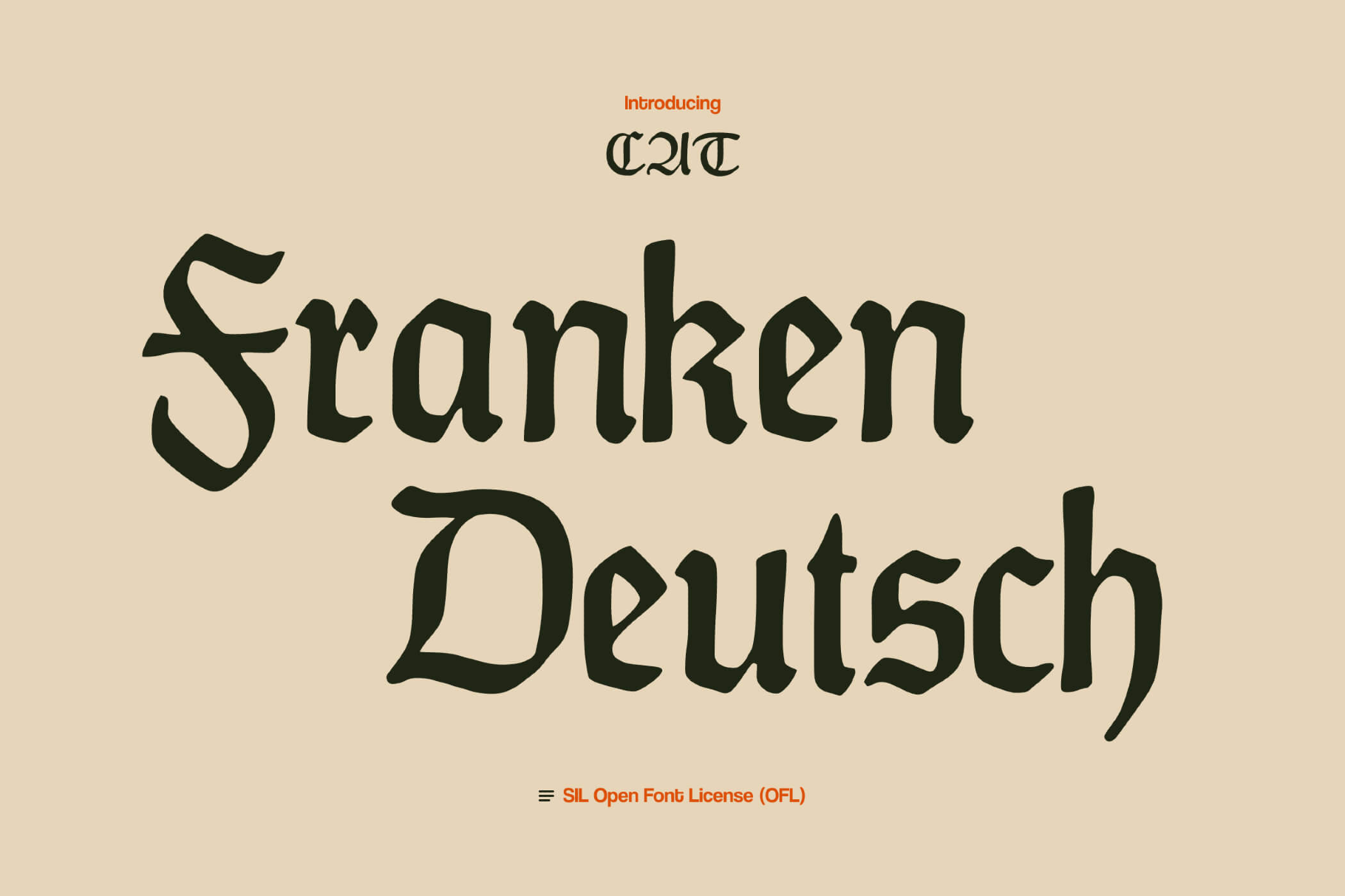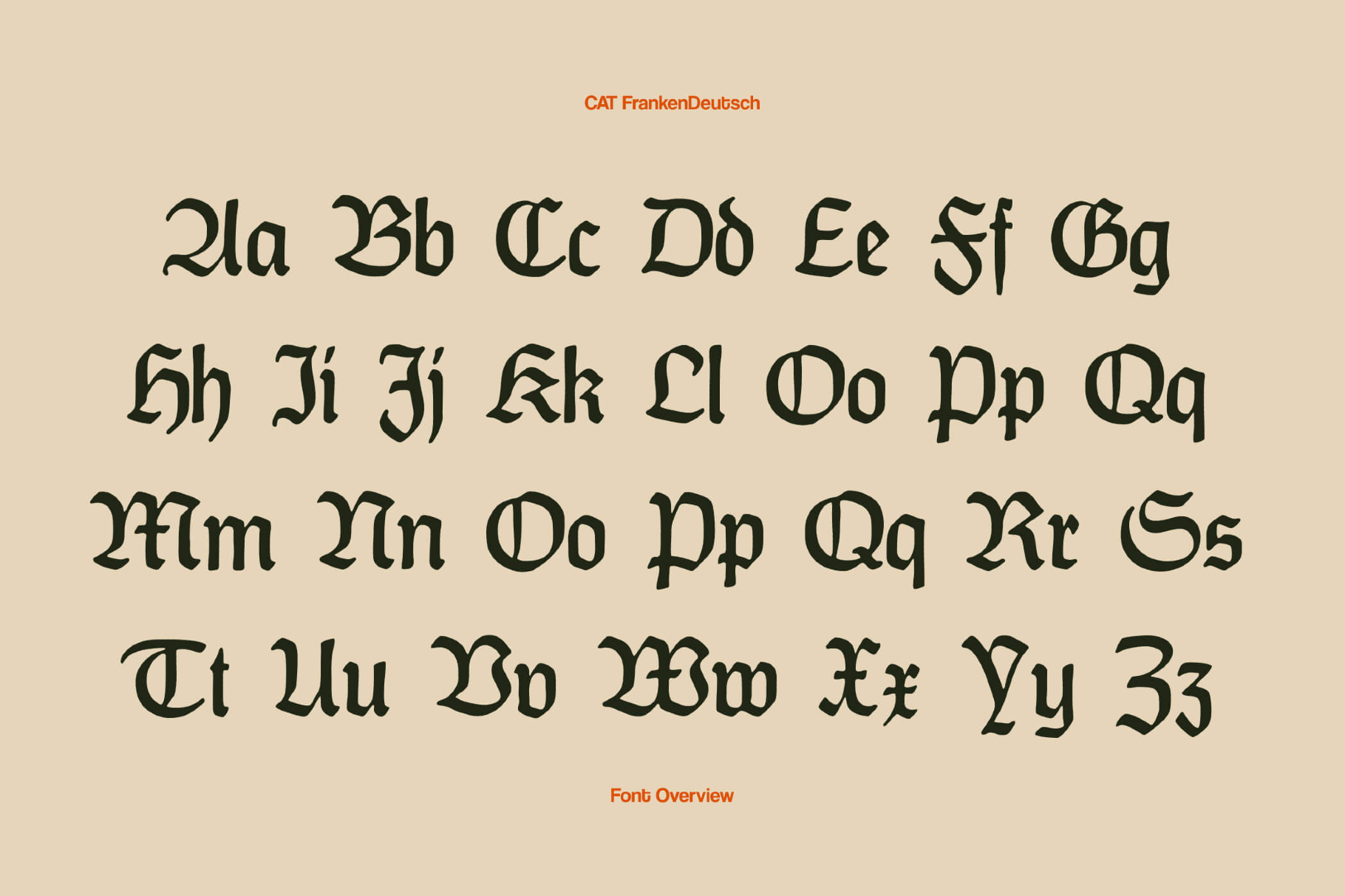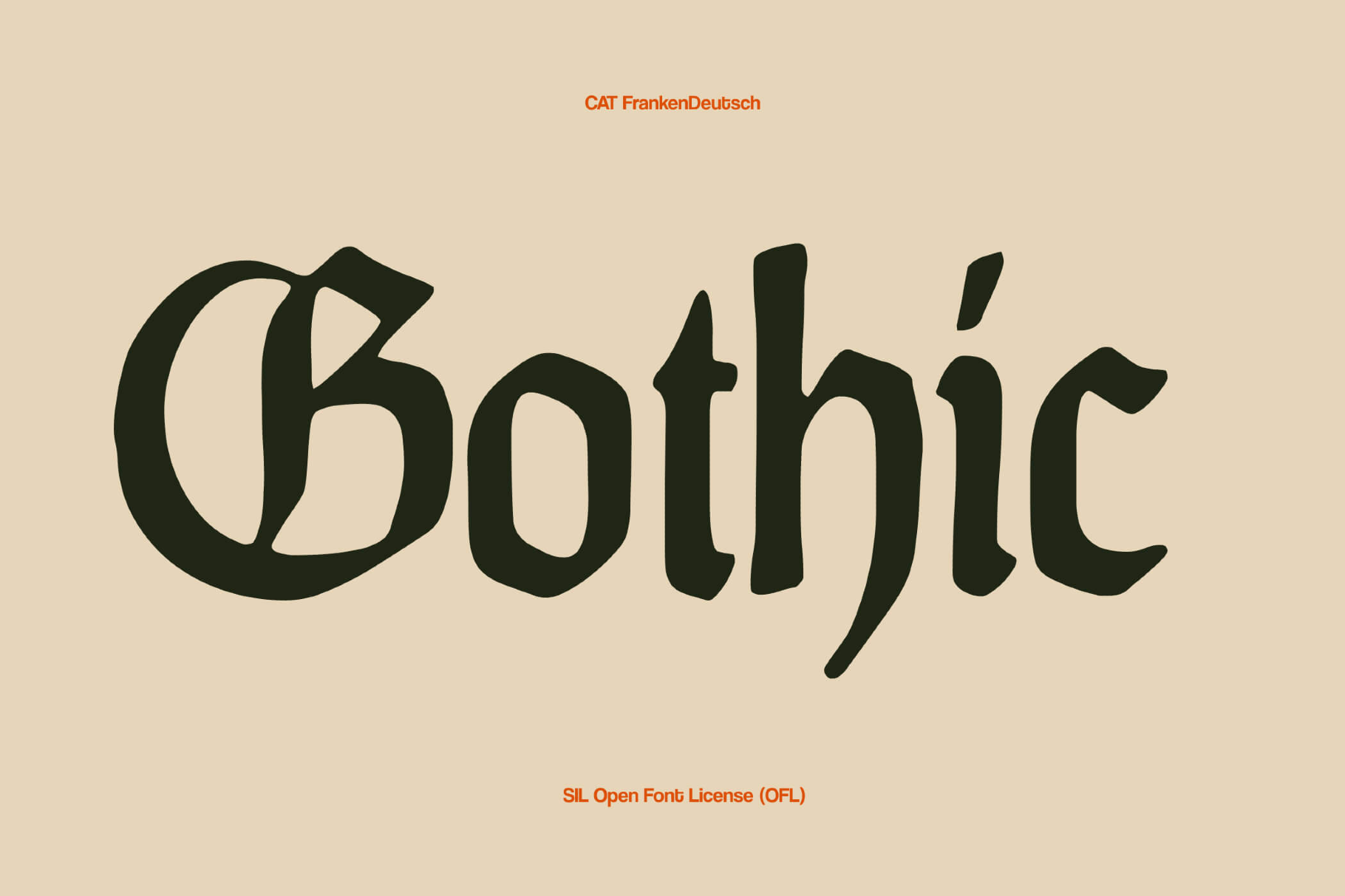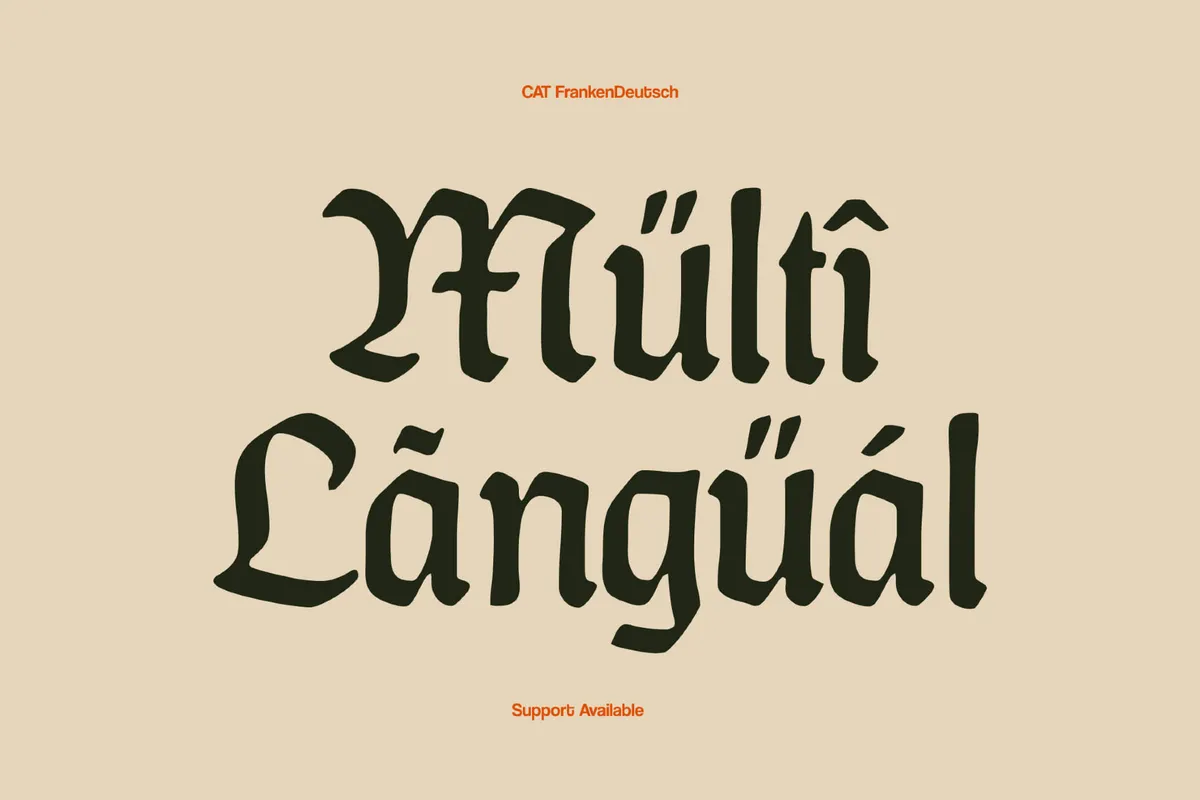
CAT FrankenDeutsch Gothic Font
This Fraktur was drawn in 1939, near the end of the blackletter era in Germany, and that late date shows in the design. Sturdy verticals, rounded broken curves, and slightly softened junctions give the letters a readable, bookish texture instead of a harsh, spiky one. Weight distribution is steady and confident, so headlines carry authority, plus a gentle rhythm on the page.
Use the typeface for historical or literary book covers, academic titles and dissertations, editorial headlines in culture or politics sections, certificates and formal documents, labels for wine, beer, or specialty foods, posters for classical music and theatre events, and logos for publishers, archives, or cultural institutions.